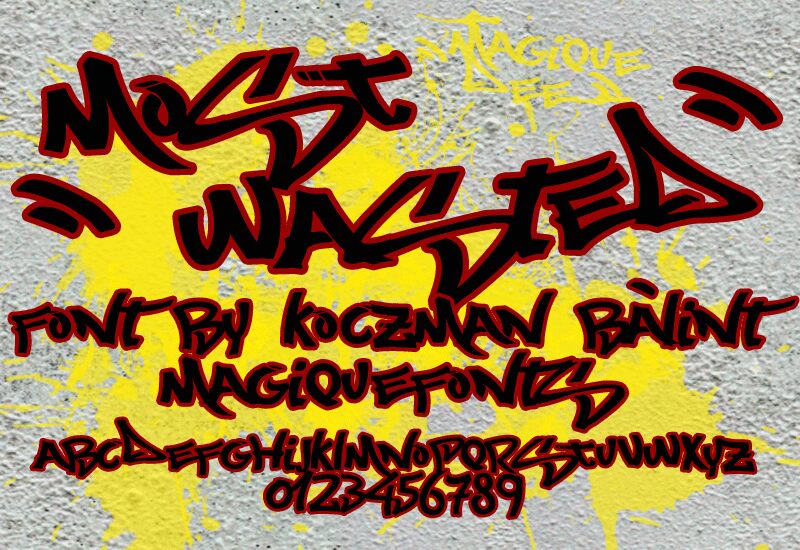
Most Wazted
Most Wazted is a free graffiti display font built from sweeping brush strokes and compact, angular forms. Its letters lean and snap across the line, with sharp joins, sudden changes in width, and long painted tails.
The lettering shares the motion of spray-painted tags and street-art illustration, so it can become part of the artwork on music posters and skateboard graphics. Its dense silhouette also suits apparel branding and album covers aimed at punk, hip-hop, or action-sports audiences. The recurring slash-like strokes make logos and merchandise feel marked by hand rather than assembled from ordinary type.